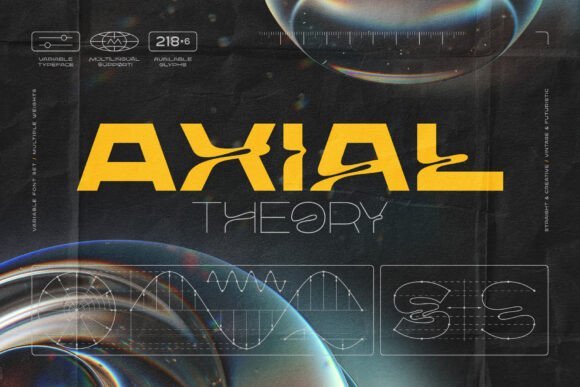
Have you ever found yourself stuck in a design rut, desperate for that one font to elevate your project from good to great? I know I have. That’s why I’m thrilled to introduce you to Axial Theory Font, a retrofuturistic type family that’s about to become your new go-to.
This versatile font set offers three weights, three width variations, and an infinitely flexible variable font that will give your text a unique, original vibe. Whether you’re a seasoned designer or just starting out, Axial Theory Font is a valuable addition to your toolkit. With its multilingual support and clever design features, it’s the perfect choice for any project that needs a touch of creativity.
Axial Theory Font Key Features
- Font Family: Axial Theory is a sans-serif font family, designed for use in digital and print media.
- Character Set: Supports a wide range of languages, including Latin, Cyrillic, Greek, and Devanagari scripts, with over 1,000 glyphs.
- Unique Characteristics: Axial Theory features a distinctive, modern design with clean lines and a geometric feel, making it ideal for use in corporate branding, signage, and digital interfaces.
Designer Review: Axial Theory Font
Overall, I think Axial Theory Font has some great qualities that make it a solid choice for certain projects, but it’s not without its limitations. ✨
- Unique character shapes and geometric flair add an interesting touch to text-based designs.
- The font’s x-height and letter spacing are well-balanced, making it easy to read.
- It’s available in a wide range of weights, making it suitable for various design applications.
- ⚠️ Limited support for extended character sets, which might cause issues for designers working with non-Latin scripts.
- ⚠️ Some characters, like the “a” and “e”, have a slightly awkward shape that may not appeal to everyone.
- ⚠️ The font’s style is quite distinctive, which can be both a blessing and a curse – it may not be suitable for projects where a more neutral font is preferred.
In conclusion, Axial Theory Font is a solid choice for designers who want to add a unique touch to their projects. However, it’s essential to weigh the pros and consider the specific needs of each project before deciding to use this font.
Tips for Getting the Most Out of Axial Theory Font
Use Axial Theory Font to create visually appealing and unique designs. Experiment with different font sizes, colors, and combinations to achieve the desired effect.
Axial Theory Font is ideal for:
- Graphic design and branding
- Typography-based art and illustrations
- Business presentations and reports
Alternatives to Axial Theory Font for Designers